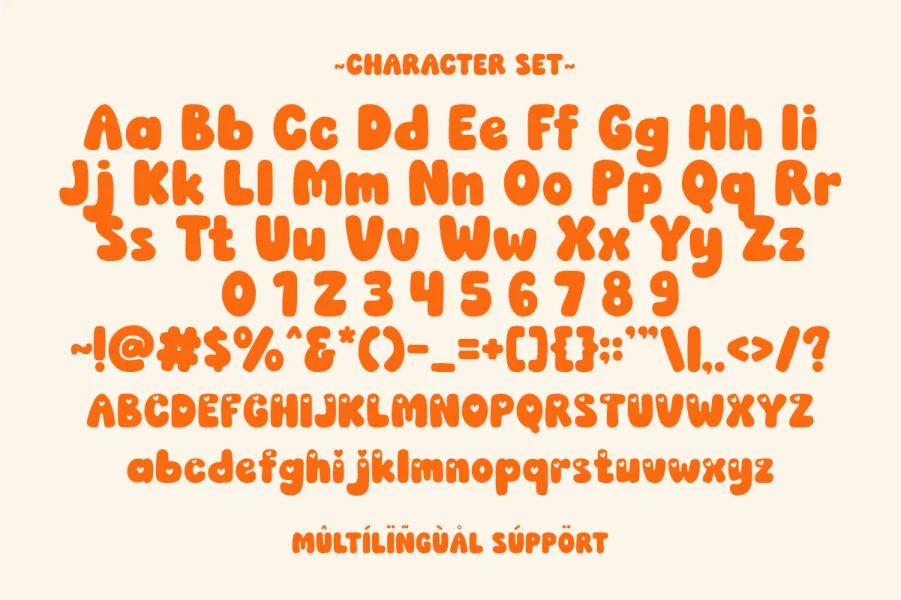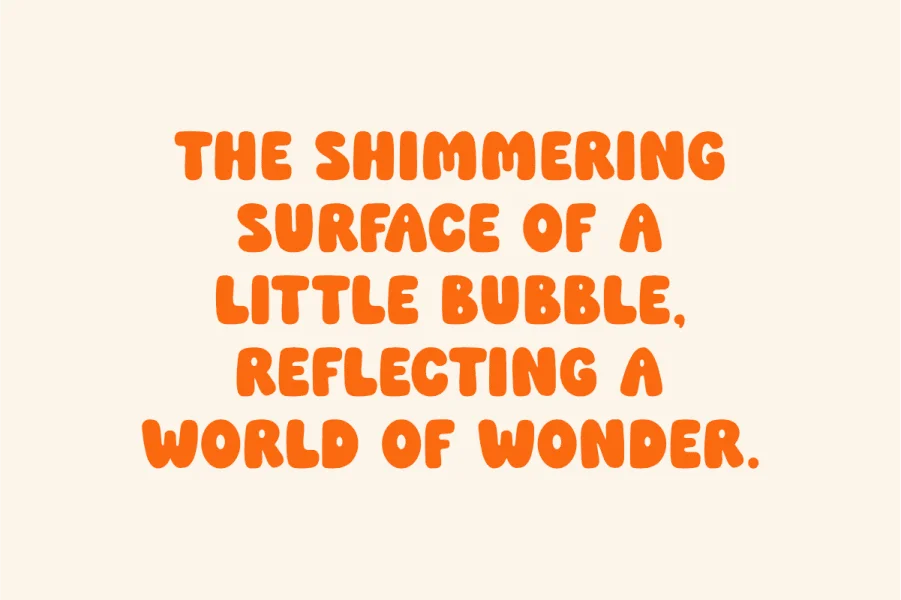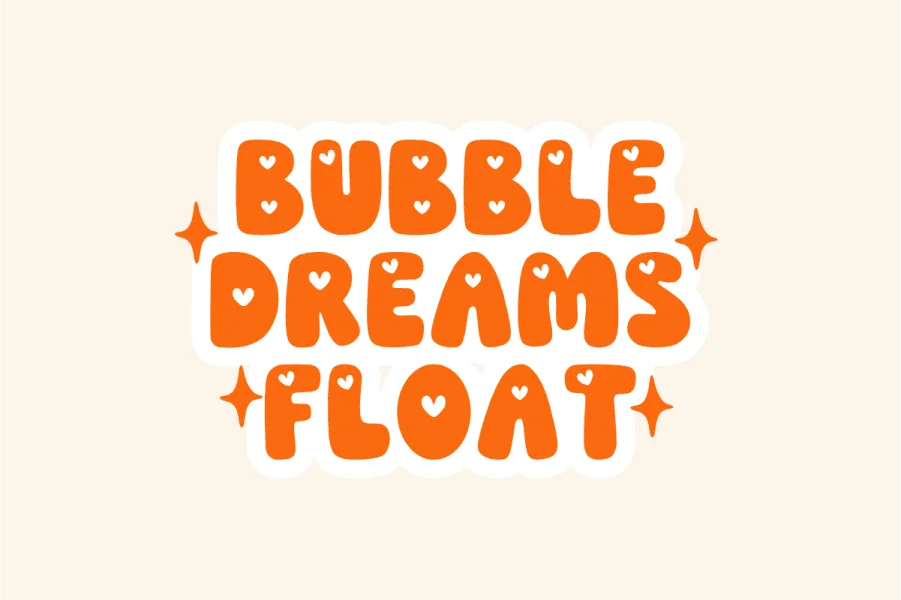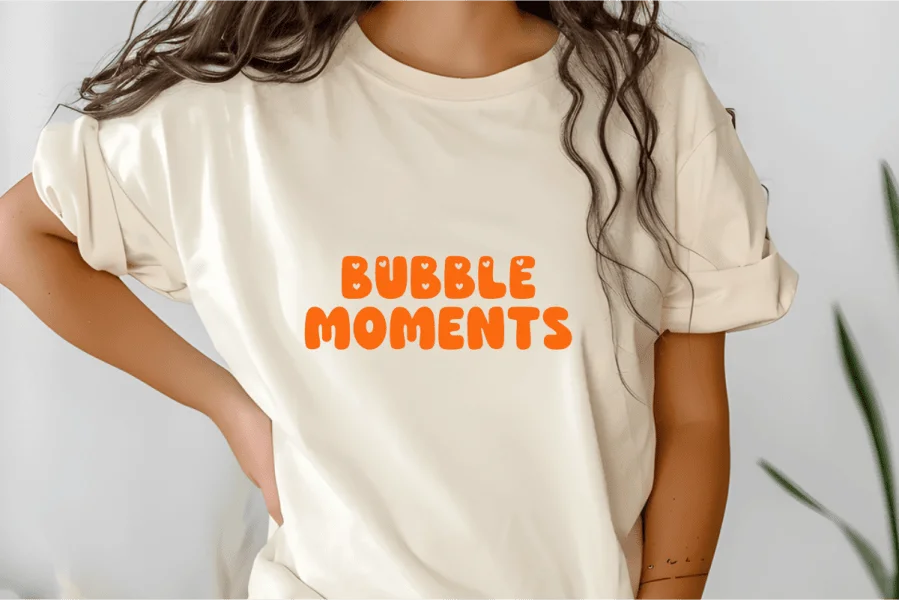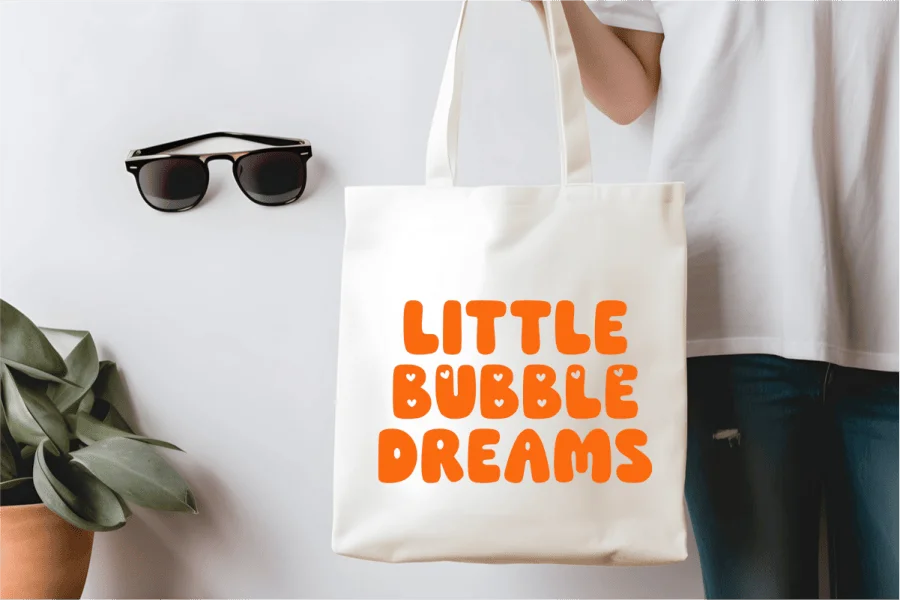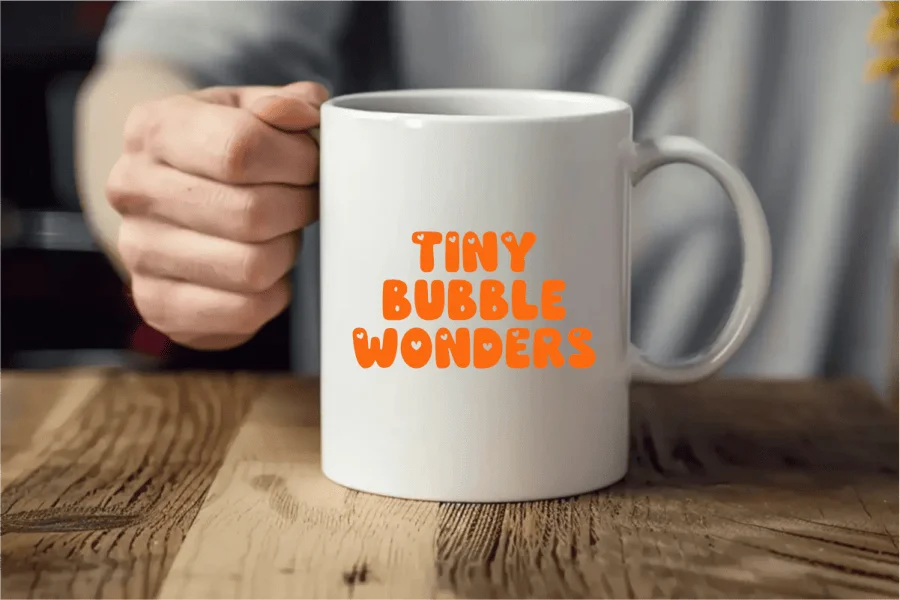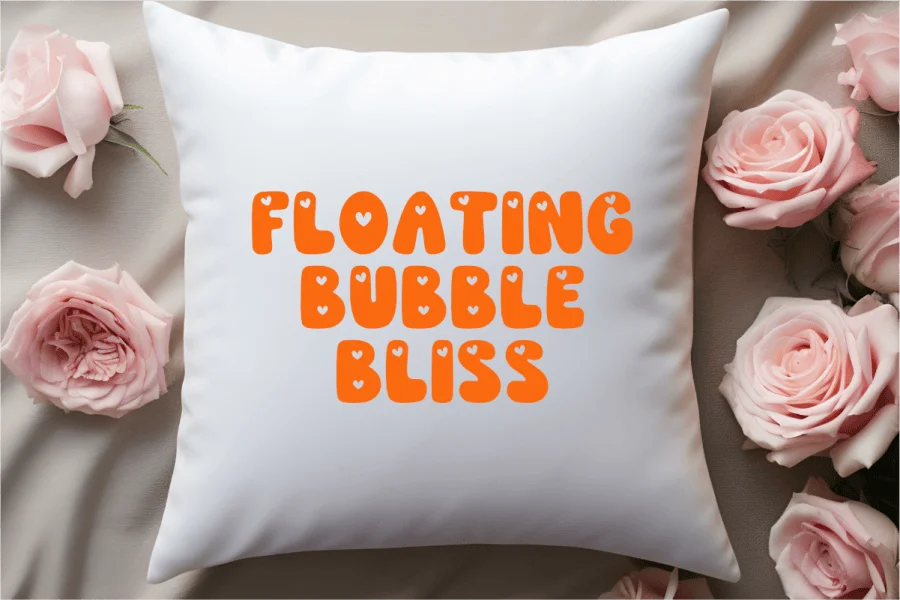
Little Bubble is a cute and chunky bubble font with playful curves and heart-shaped details inside each letter. This font is perfect for children’s projects, Valentine’s cards, playful branding, baby shower invitations, and any design that needs a fun and adorable touch. Its bold and bubbly look brings joy and charm, making it ideal for social media graphics, stickers, t-shirts, and more. Let your creativity pop with Little Bubble!